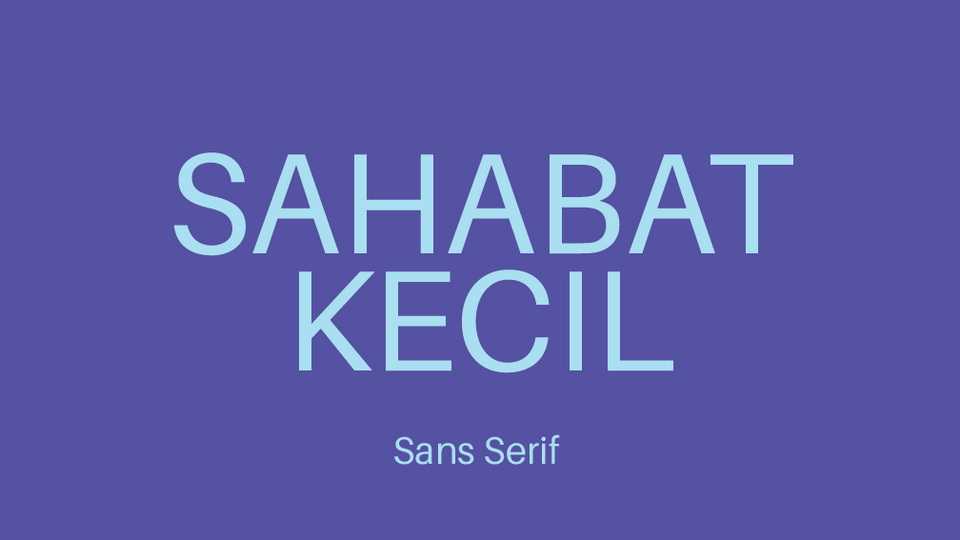
Download Sahabat Kecil font, a highly functional and versatile sans serif typeface that has proven its worth over the past three years. Its simple, modern design and wide range of weights and styles make Sahabat Kecil an excellent choice for designers and businesses looking for a reliable, high-quality font option.
Designer: Stefie Justprince